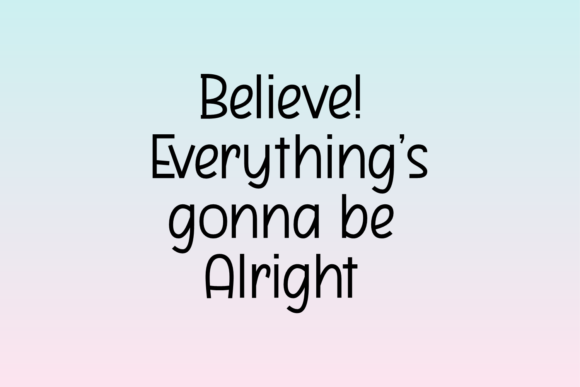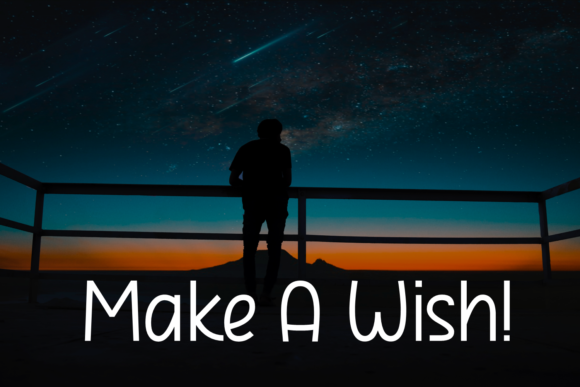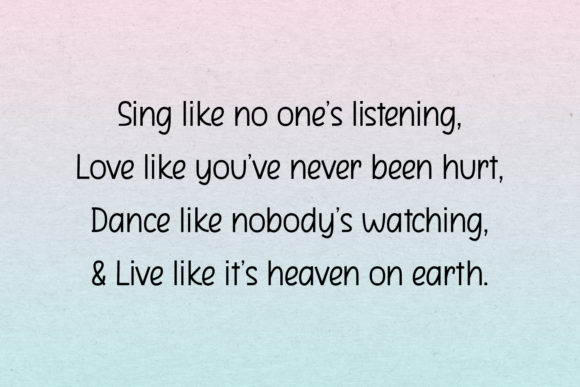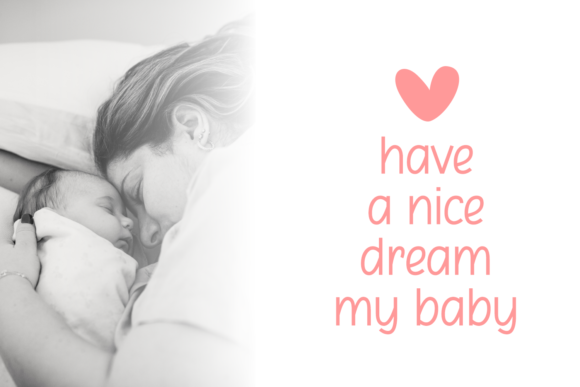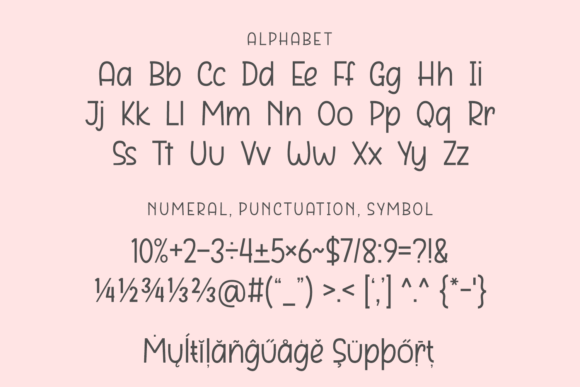
Alice Dream Font: The Ultimate Handwritten Font for Creative Projects
Are you tired of using the same old fonts for your creative projects? Look no further than the Alice Dream Font, a cool, casual, and adaptable handwritten font that’s perfect for making your designs stand out. In this article, we’ll dive into the features and benefits of the Alice Dream Font, and explore how it can elevate your designs to the next level.
What is Alice Dream Font?
Alice Dream Font is a unique and stylish handwritten font that’s designed to add a touch of personality to your creative projects. With its casual and adaptable nature, it’s perfect for a wide range of applications, from digital designs to print materials. Whether you’re a designer, crafter, or DIY enthusiast, the Alice Dream Font is an excellent addition to your font collection.
Key Features of Alice Dream Font
- Handwritten style: The Alice Dream Font features a beautiful, handwritten style that’s perfect for adding a personal touch to your designs.
- Cool and casual: This font has a relaxed, casual vibe that’s perfect for creating laid-back and trendy designs.
- Adaptable: The Alice Dream Font is incredibly versatile and can be used for a wide range of projects, from digital designs to print materials.
- Easy to read: Despite its casual nature, the Alice Dream Font is easy to read and understand, making it perfect for body text and headings.
Benefits of Using Alice Dream Font
So, why should you choose the Alice Dream Font for your creative projects? Here are just a few benefits of using this amazing font:
- Adds personality to your designs: The Alice Dream Font is a great way to add a touch of personality to your designs and make them stand out from the crowd.
- Perfect for creative projects: Whether you’re working on a DIY project, creating digital art, or designing a logo, the Alice Dream Font is an excellent choice.
- Versatile: The Alice Dream Font can be used for a wide range of projects, from invitations and greeting cards to social media graphics and website designs.
- Pair with other fonts: Experiment with pairing the Alice Dream Font with other fonts to create unique and interesting typography combinations.
Project Ideas Using Alice Dream Font
The Alice Dream Font is perfect for a wide range of creative projects. Here are a few ideas to get you started:
- DIY craft projects: Use the Alice Dream Font to add a personal touch to your DIY craft projects, such as handmade cards, gift tags, and decorations.
- Digital art: Create stunning digital art pieces using the Alice Dream Font as a central design element.
- Social media graphics: Use the Alice Dream Font to create eye-catching social media graphics, such as Instagram posts and Facebook headers.
- Logo design: The Alice Dream Font is perfect for creating unique and memorable logos for businesses and personal brands.
| Font Name | Alice Dream Font |
| Author | Anto (7NTypes) |
In conclusion, the Alice Dream Font is a cool, casual, and adaptable handwritten font that’s perfect for adding a touch of personality to your creative projects. With its easy-to-use nature and versatile design, it’s an excellent addition to any designer’s or crafter’s font collection. So why not give it a try and see how it can elevate your designs to the next level?